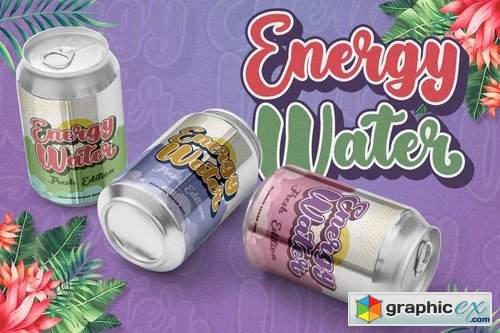
Gadimon Layered Script Font
Introducing Gadimon Layered Bold Script. This font is used with the layers method, so it can generate interesting fonts to see, you no longer need to worry about how to make an effect on the text.